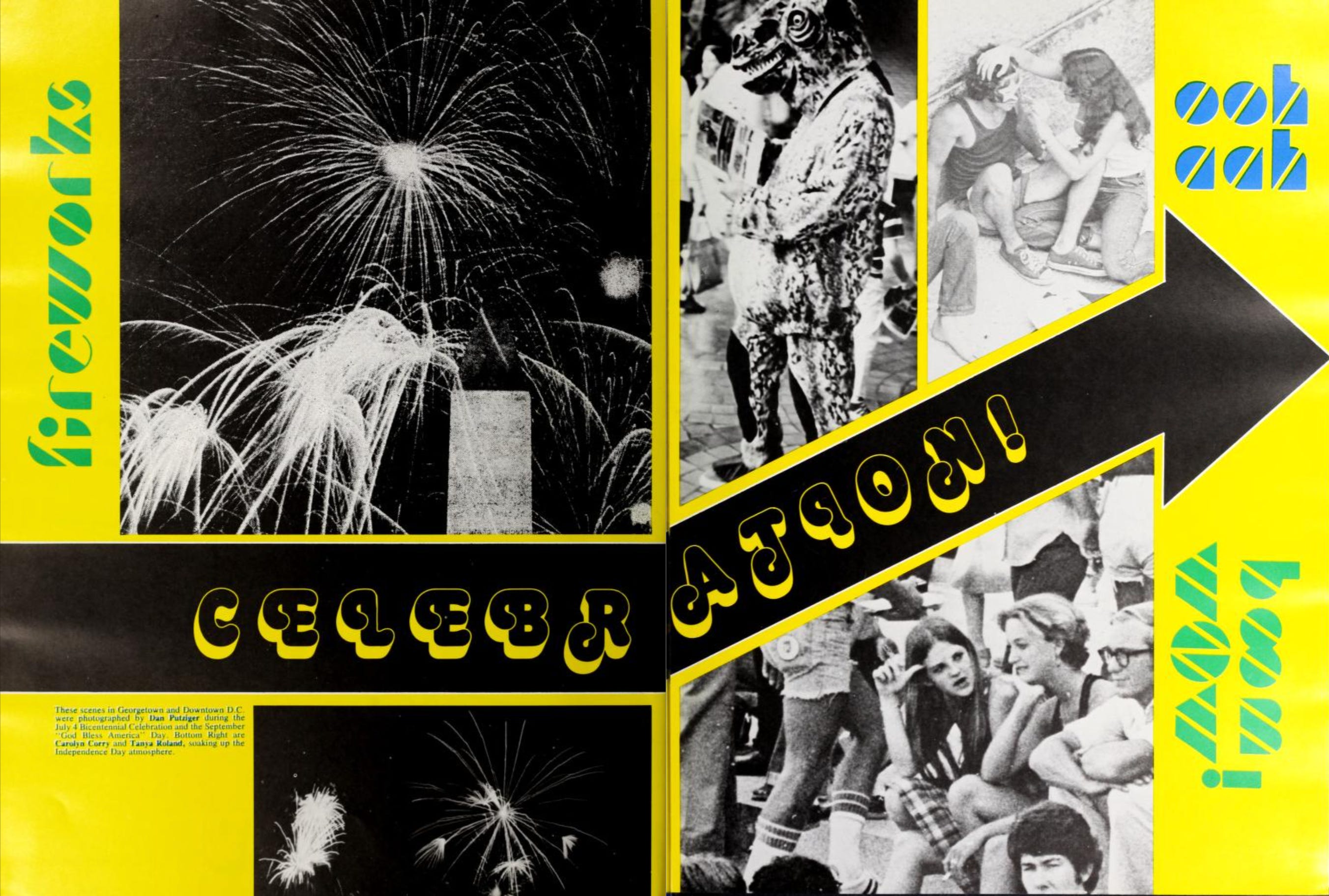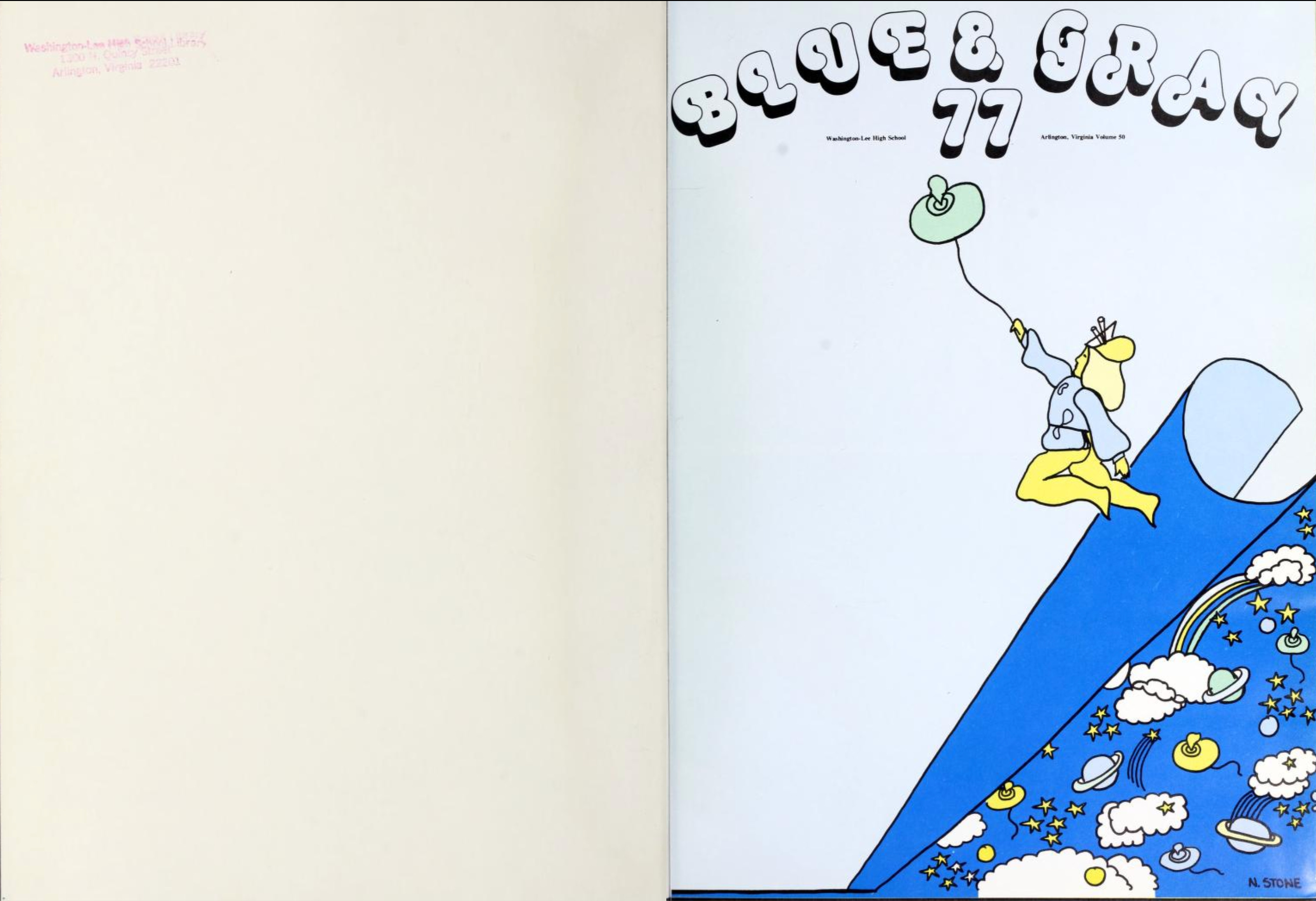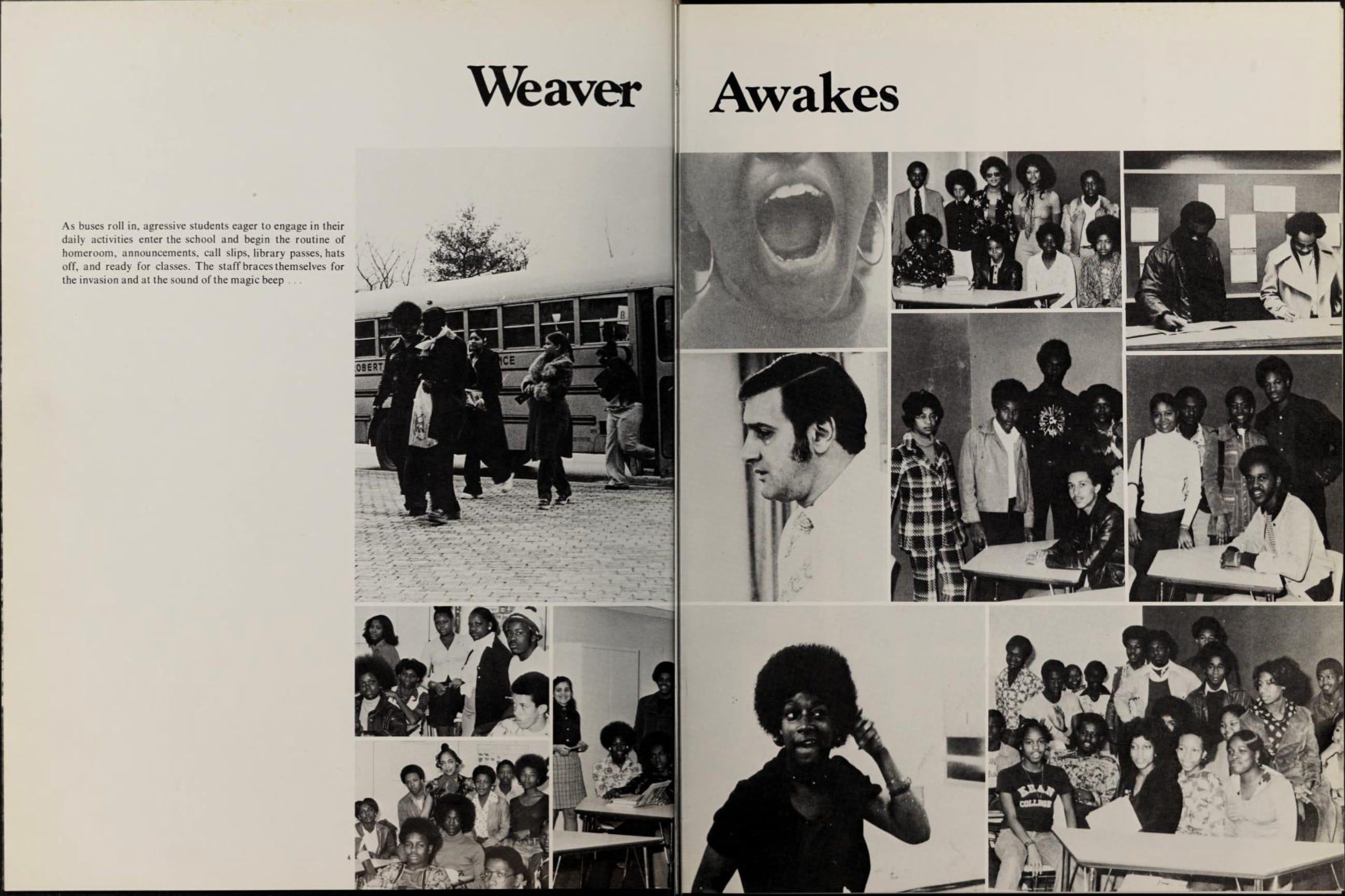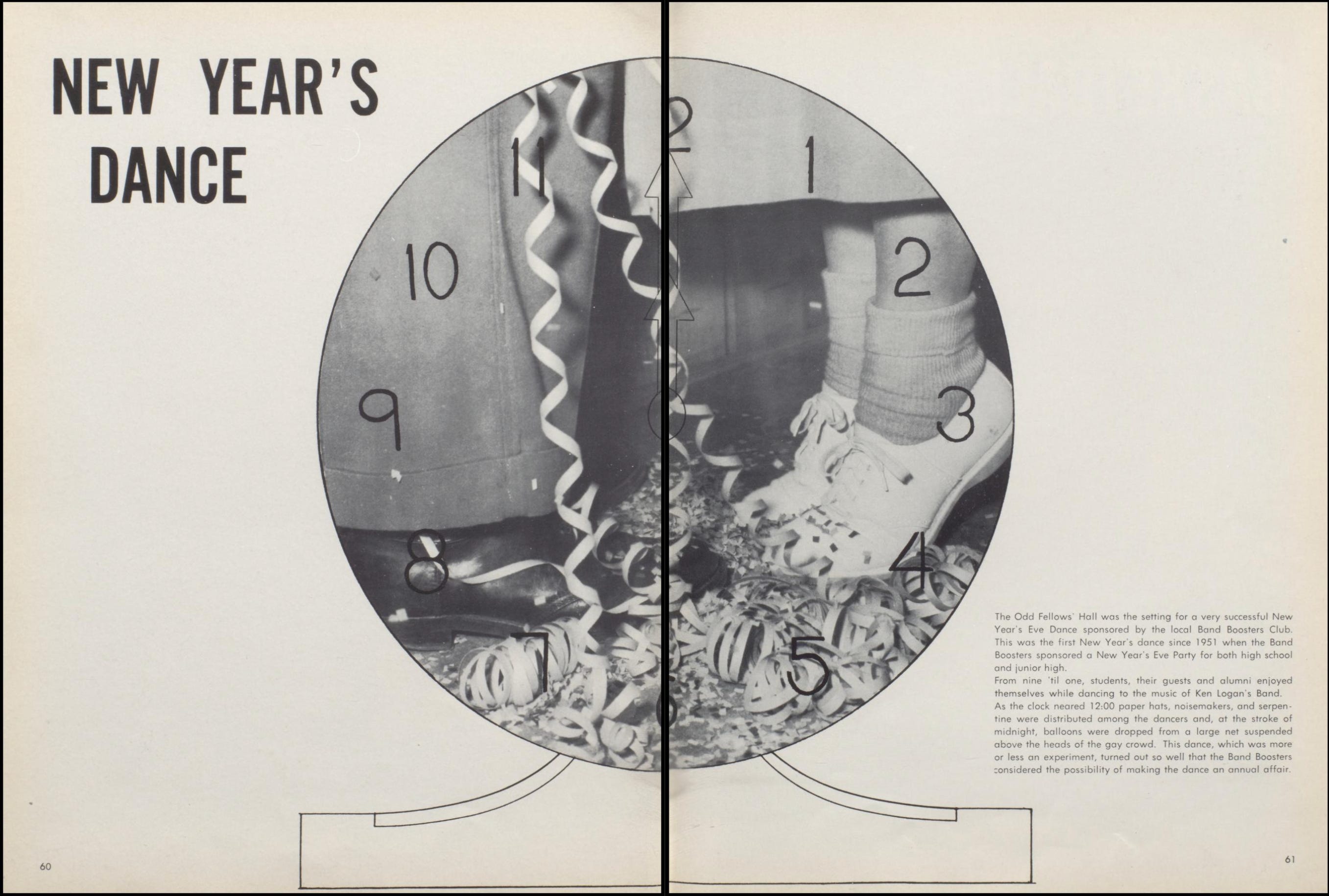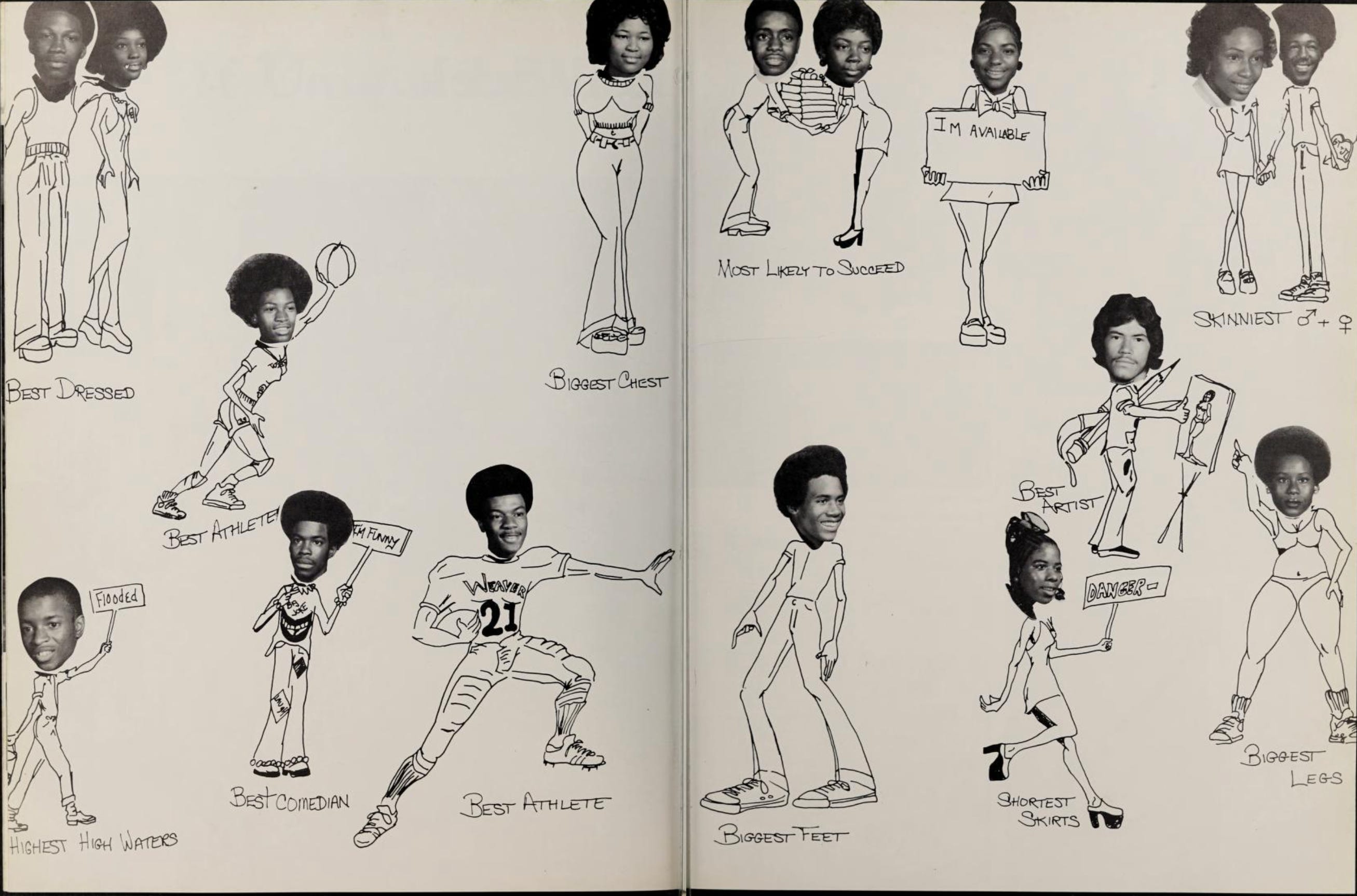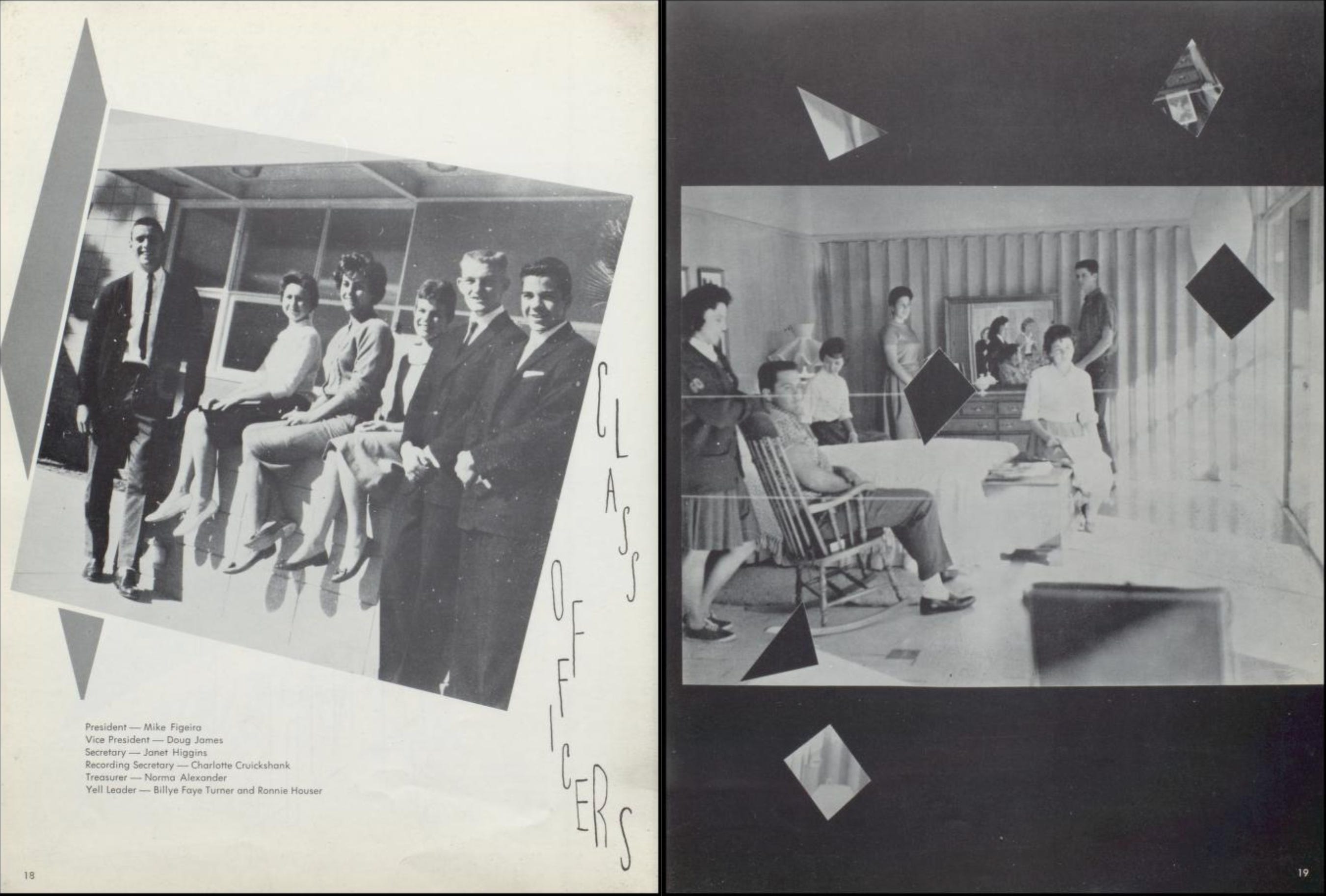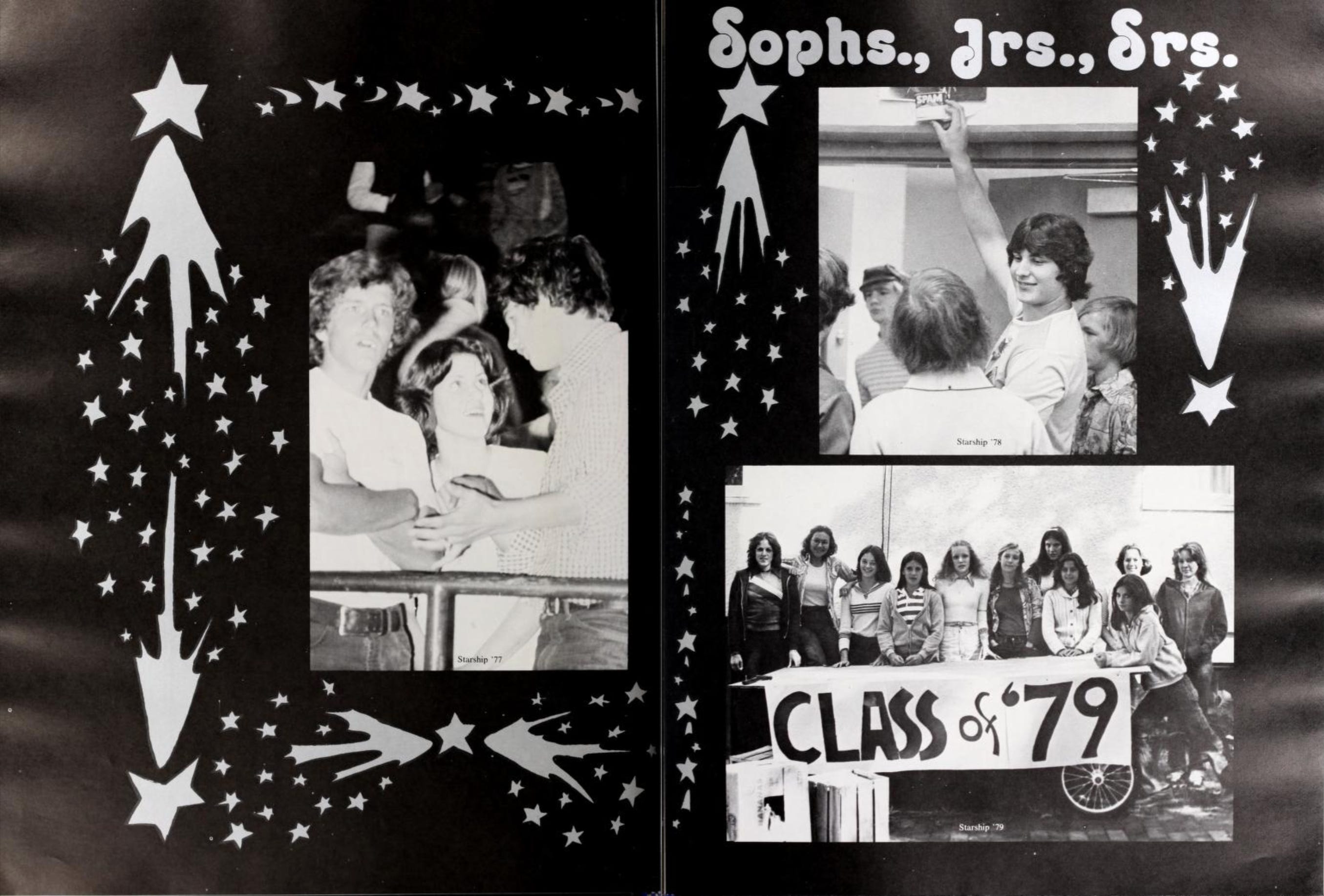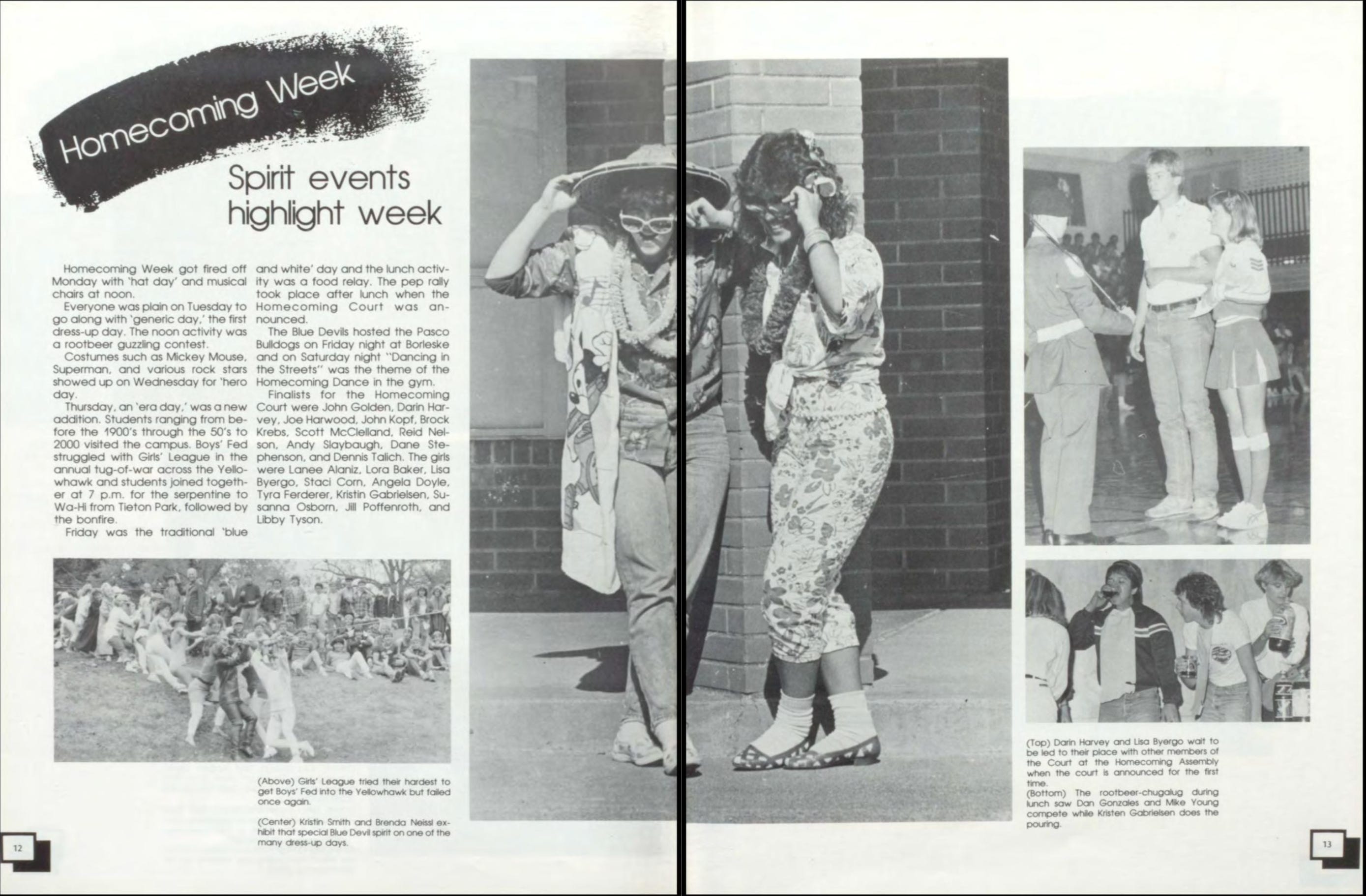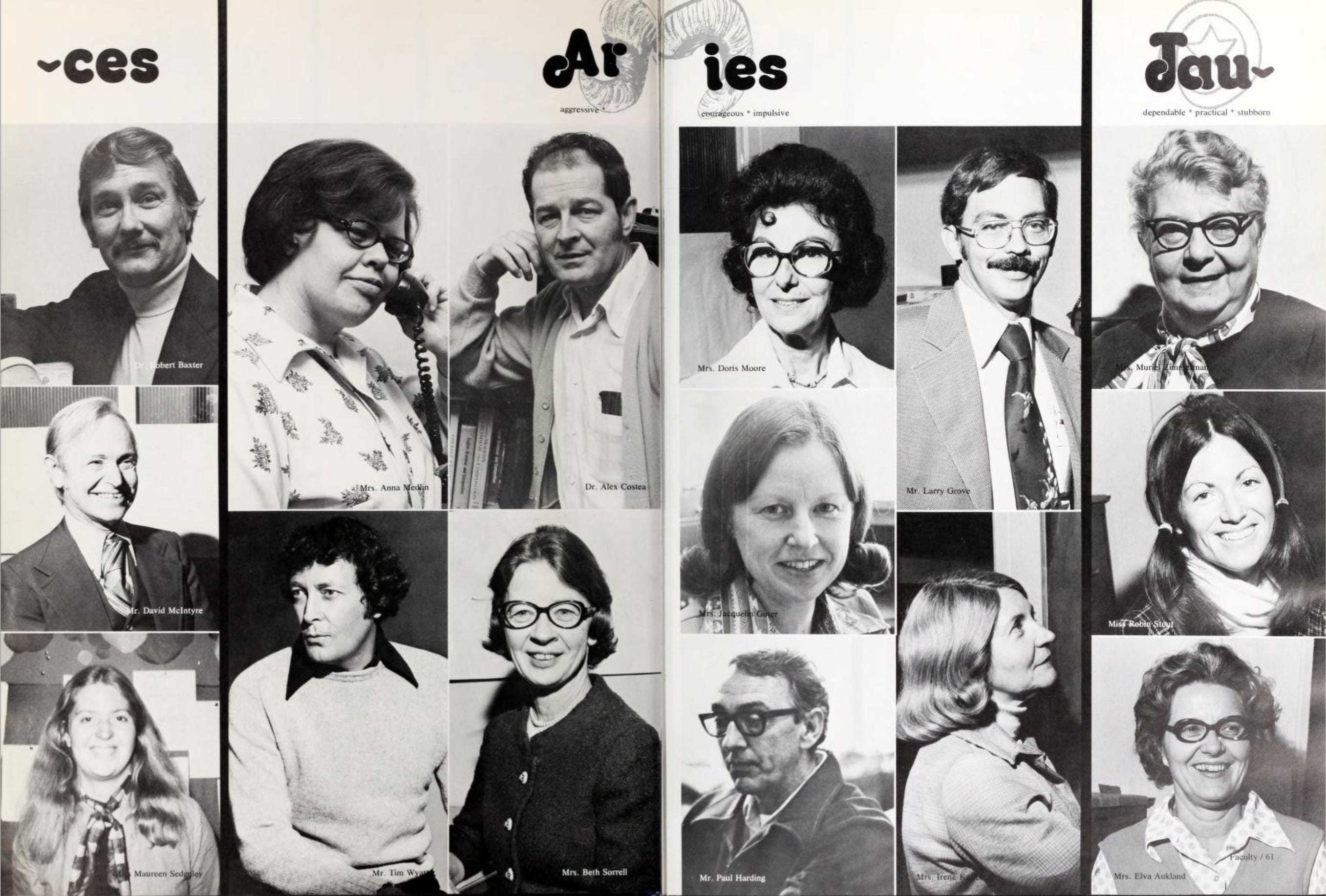
Today we’re looking at old yearbooks. A while ago, I stumbled across one on Archive.org and immediately fell into a research rabbit hole and knew that I needed to share these with you!
It’s that time of year — summer is so close we can almost taste it! If we were still kids, it would almost be the last day of the school year and we’d be not-so-patiently sitting through our final classes waiting for the last bell to chime. The best part about youth is that you get 3 whole months off to do literally nothing and have not one ounce of guilt about it!!
Well I am hoping that we can siphon off some of that high by taking a look at some truly nostalgic images. All the yearbooks below come from a time before digital printing made everything boring (but accessible!) and the yearbook committees had to get scrappy! There’s a lot of charm in the pre-digital era that needs to make a comeback. How fun would it be to have been to be on a yearbook committee in the 70s? Can you imagine the power dynamics??
Stillwater High School - 1955
Stillwater, MN
This is my grandma’s yearbook. <3
Weaver High School - 1975
Hartford, CT
Corona High School - 1955
Corona, CA
Corona High School - 1961
Corona, CA
Washington Lee High School - 1977
Arlington, VA
Walla Walla High School - 1986
Walla Walla, WA